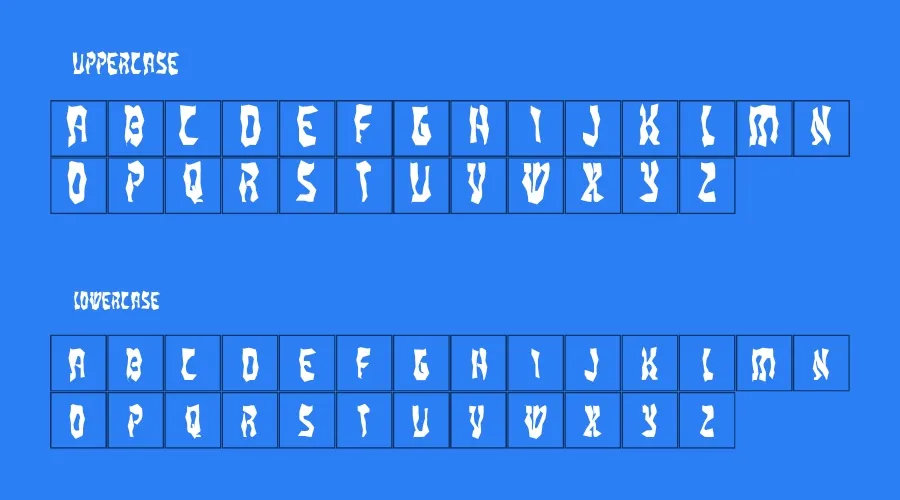
About Fz Wacky 20 Font
Fz Wacky 20 Font is designed by Fantazia Concepts it incorporates a set of optional cords, which embraces its versatility. This typeface contains in-vogue glyphs and characters the design may be an incredible choice for any task that needs a touch of class. Get its free version and include a stylish touch to the project.
This font additionally has both lowercase characters and capitalized characters, as well as a huge number of ligatures. This font helps creators when designing scary themes. You can use this font to create remarkable and eye-catching designs.
It's ideal for giving your work uniqueness as well as making it differentiate itself from other projects. Due to its eye-catching design, this font is commonly used in a lot of stylish projects. The pairing status of blade font is outstanding with this typeface.